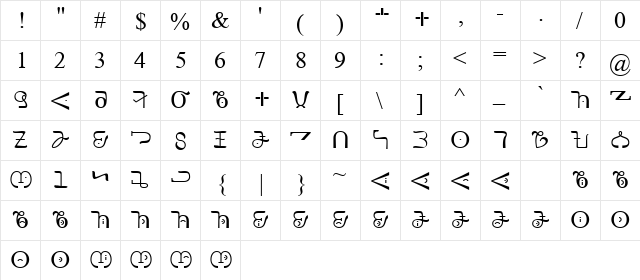
JG Bassa Vah Print Regular
Design Context for JG Bassa Vah Print Typeface
JG Bassa Vah Print takes a measured approach to typography — its balanced proportions and neutral character make it a reliable workhorse for both digital and print work.